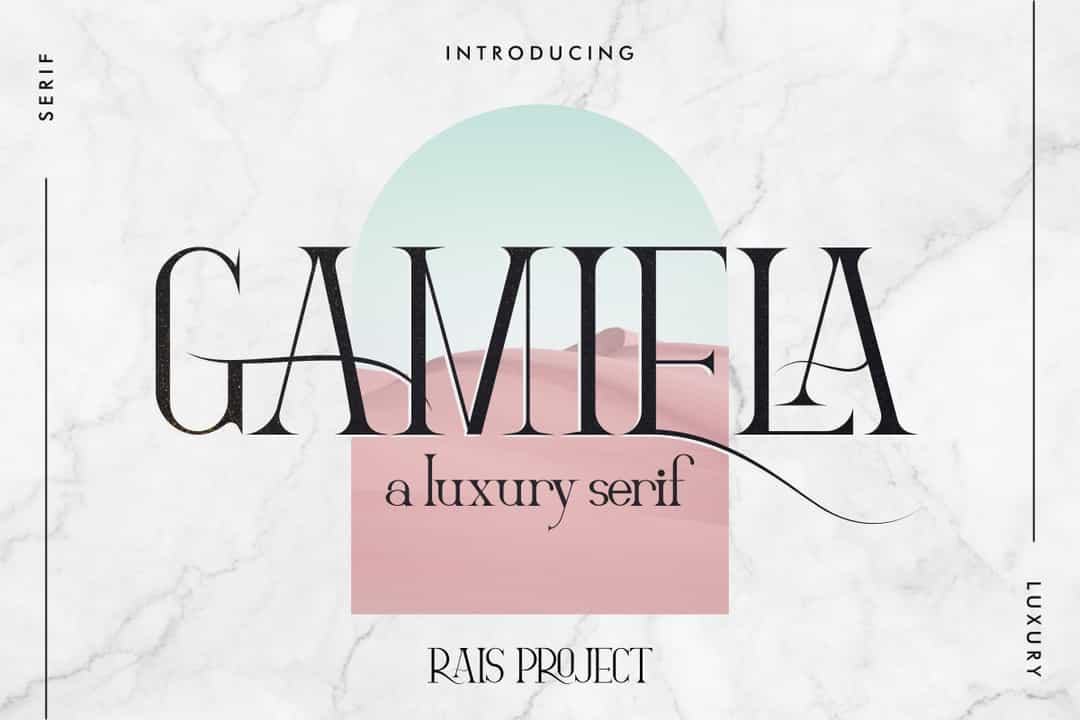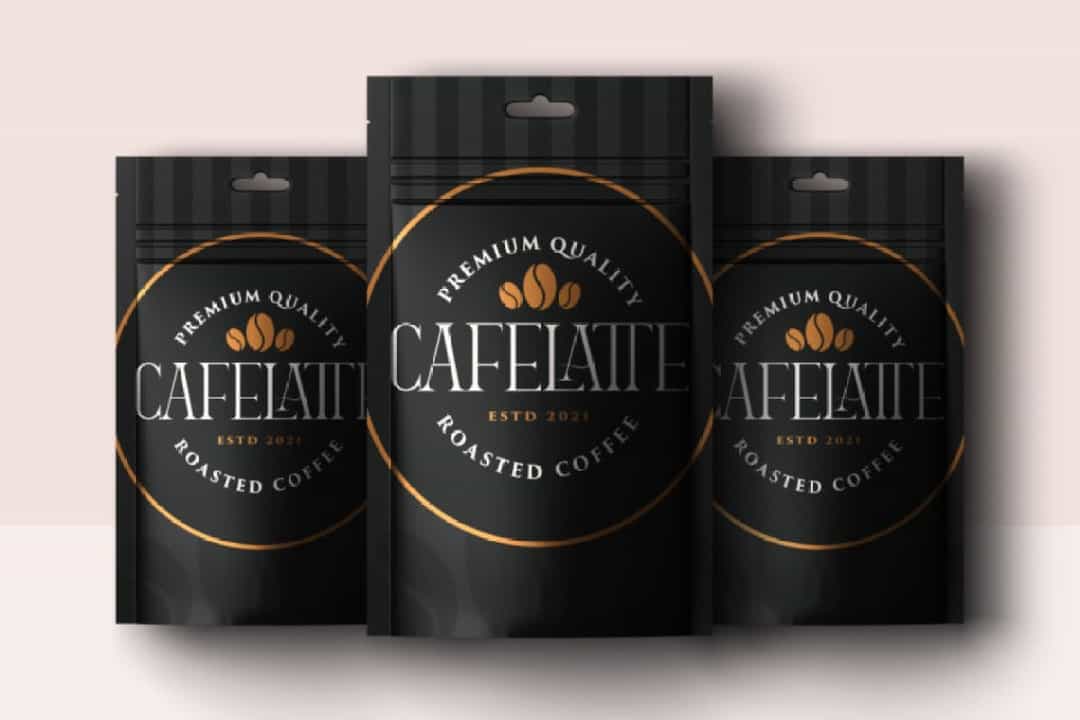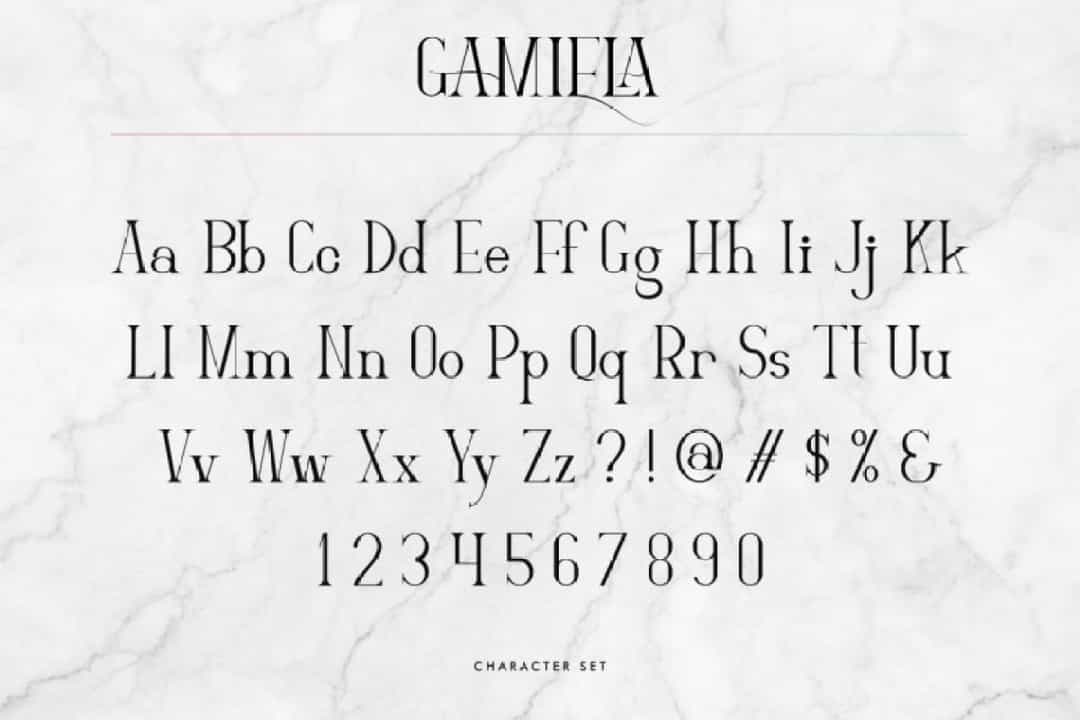
Gamiela is a luxurious display Serif contemporary font family developed by RaisProject. Our latest font offering, it boasts contemporary, clean and sleek design features as seen below in the preview below as well as by typing any word to see how it appears in real time.